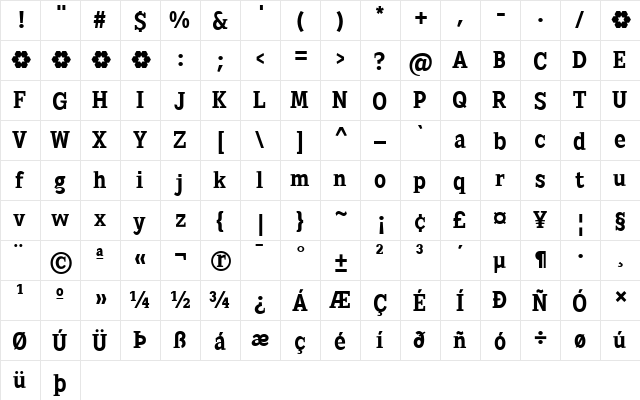
Sextan Bold Regular
| Foundry | deFharo |
| Designer | Fernando Haro |
Design Context for Sextan Bold Typeface
Sextan Bold is a composed and adaptable typeface that performs quietly and consistently across a wide range of design contexts. The heavy weight commands attention and anchors typographic hierarchies.